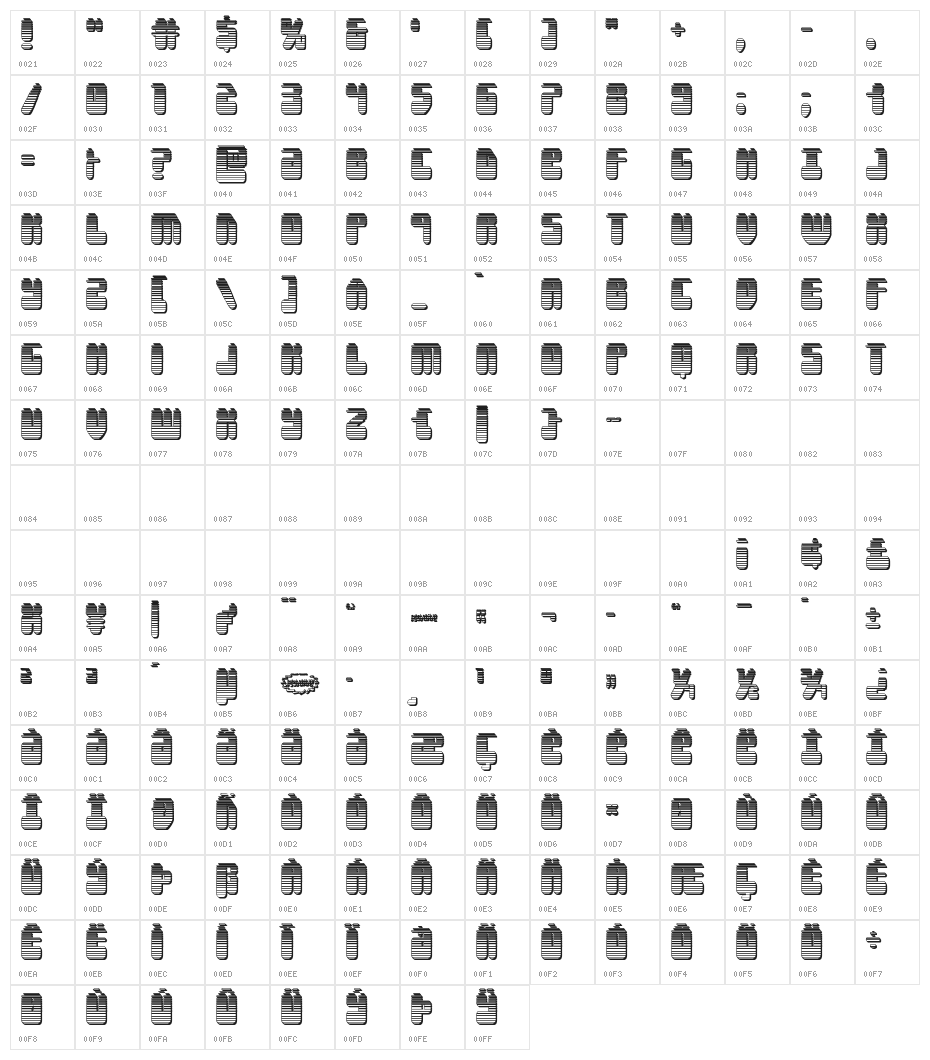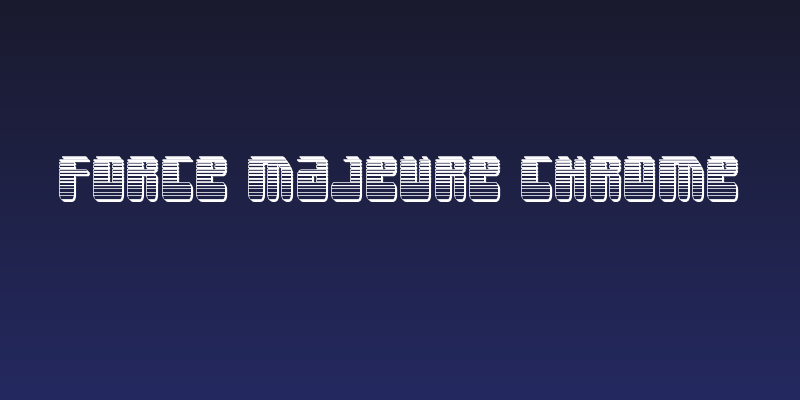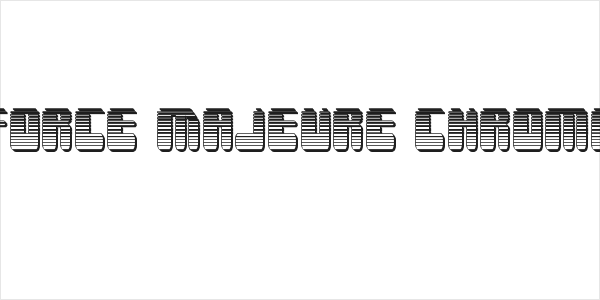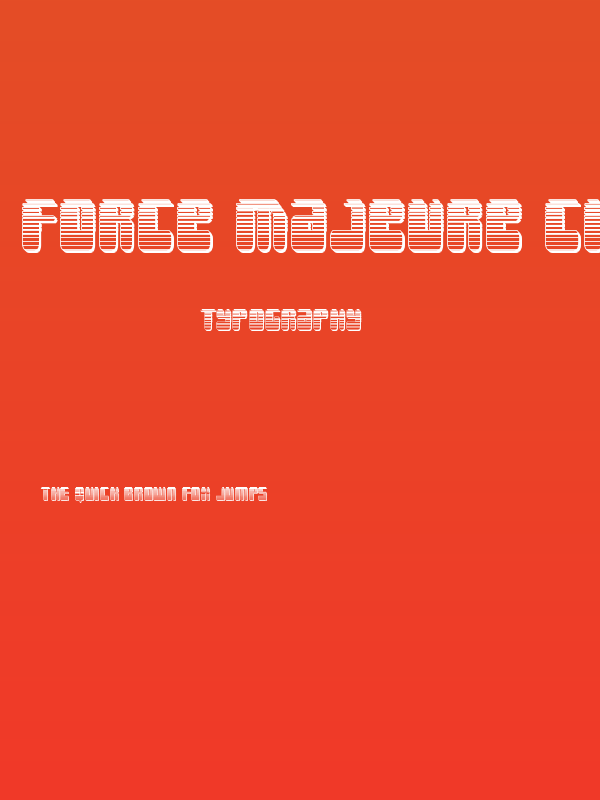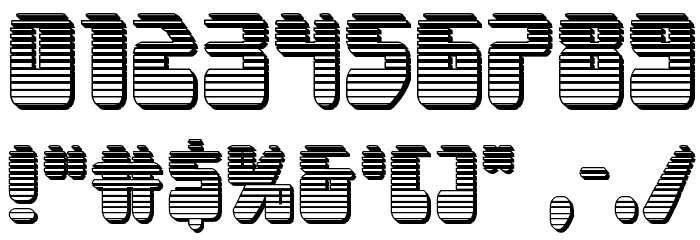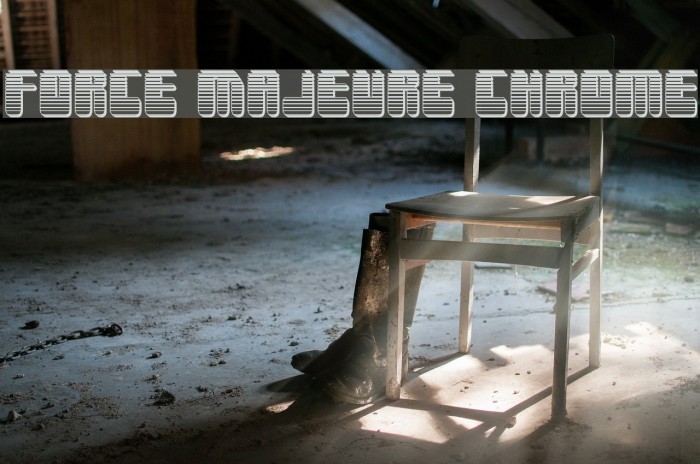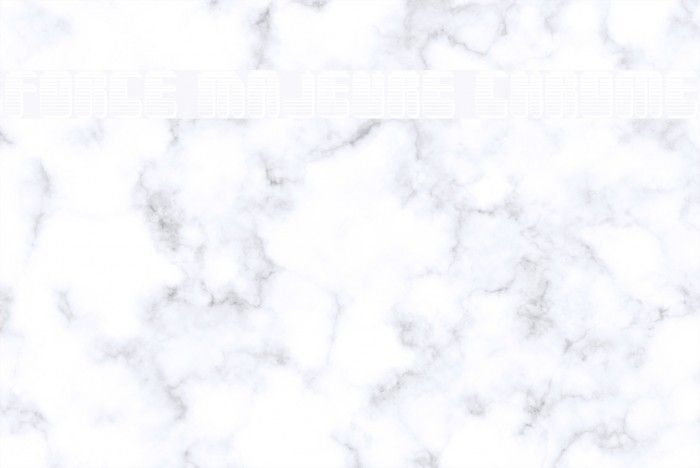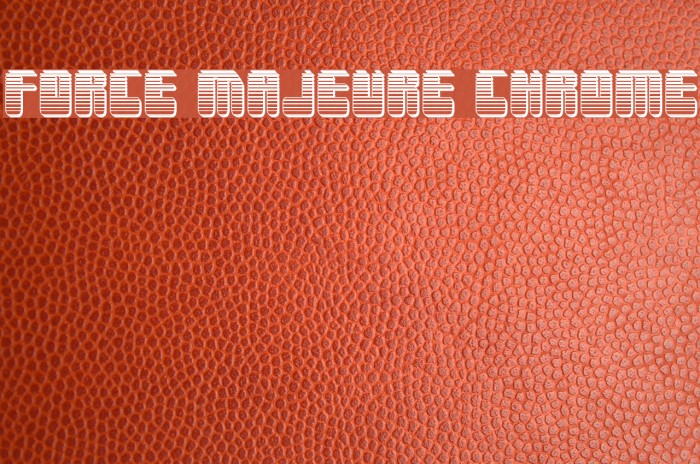
Force Majeure Chrome Font
Force Majeure Chrome Description
This font exhibits a bold, futuristic design with a distinct chrome-like appearance. Each character is composed of multiple horizontal lines, creating a layered effect that gives a sense of depth and dimension. The letters are uniformly wide, with rounded edges that soften the overall look. The uppercase and lowercase letters maintain a consistent style, while the numerals and special characters integrate seamlessly with the alphabet. The font's unique aesthetic makes it ideal for projects that require a modern and eye-catching typeface.
| Proposed Projects | Ideal for sci-fi themed posters, video game titles, technology branding, and futuristic event invitations. |